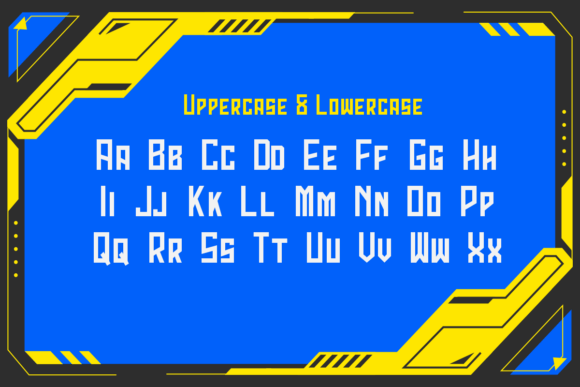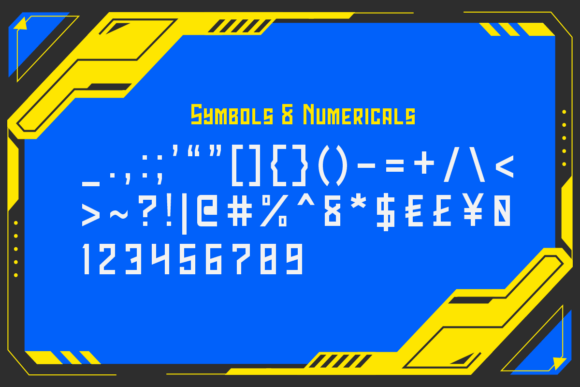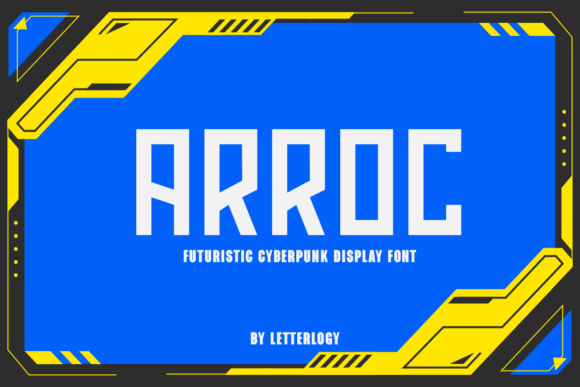
Introducing Arroc Font: The Ultimate Sci-Fi Display Typeface
Are you a designer or craft looking for the perfect font to bring your sci-fi designs to life? Look no further than Arroc Font, a futuristic display sans serif font inspired by the dystopian future of the cyberpunk genre. With its sleek and neon-lit aesthetic, Arroc Font is the ideal typeface to accompany your sci-fi design journey in that neon-filled world.
The Inspiration Behind Arroc Font
Arroc Font draws inspiration from the cyberpunk genre, a futuristic and dystopian world characterized by its dark and gritty aesthetic. The font’s design is influenced by the neon-lit cityscapes, advanced technology, and rebellious spirit of the cyberpunk movement. The result is a font that exudes a sense of futurism and high-tech sophistication.
Key Features of Arroc Font
Arroc Font boasts a range of key features that make it the perfect choice for sci-fi designs. Some of its notable features include:
- Clean and minimalist design: Arroc Font features a clean and minimalist design, making it perfect for use in a variety of design applications, from posters and flyers to digital interfaces and video games.
- Neo-lined aesthetic: The font’s neo-lined aesthetic gives it a distinctly futuristic feel, perfect for designs that require a sense of high-tech sophistication.
- Sans serif design: The sans serif design of Arroc Font ensures that it remains legible and easy to read, even at small sizes.
- Wide range of uses: Arroc Font is versatile and can be used in a wide range of design applications, from branding and advertising to packaging and digital media.
Why Choose Arroc Font?
So why choose Arroc Font for your sci-fi designs? Here are just a few reasons:
- Instant recognition: Arroc Font’s unique and futuristic design ensures that your designs will stand out and grab attention.
- Flexibility: The font’s versatility means that it can be used in a wide range of design applications, from print to digital.
- Ease of use: Arroc Font is easy to use and can be easily integrated into your design workflow.
- High-quality design: The font is designed to high-quality standards, ensuring that it will look great in any design application.
How to Use Arroc Font in Your Designs
Using Arroc Font in your designs is easy. Here are a few tips to get you started:
- Pair with bold colors: Arroc Font looks great when paired with bold, neon colors. Try using it with bright pink, green, or blue to create a truly eye-catching design.
- Use in combination with other fonts: Arroc Font can be used in combination with other fonts to create a unique and visually interesting design.
- Experiment with different sizes: The font’s clean and minimalist design means that it can be used at a range of different sizes, from large headings to smaller body text.
Arroc Font is the perfect choice for designers and crafters looking to create futuristic and eye-catching sci-fi designs. With its sleek and neo-lined aesthetic, clean and minimalist design, and wide range of uses, Arroc Font is the ultimate sci-fi display typeface. Whether you’re designing a poster, flyer, or digital interface, Arroc Font is sure to bring your designs to life.